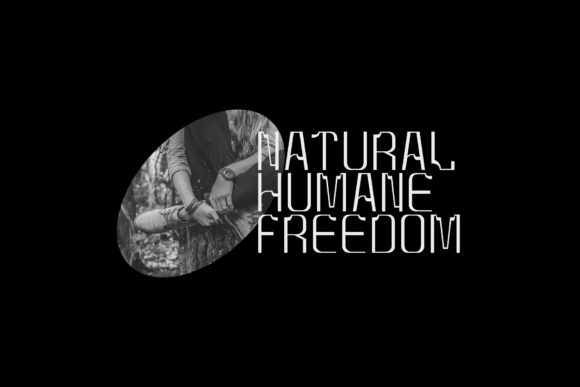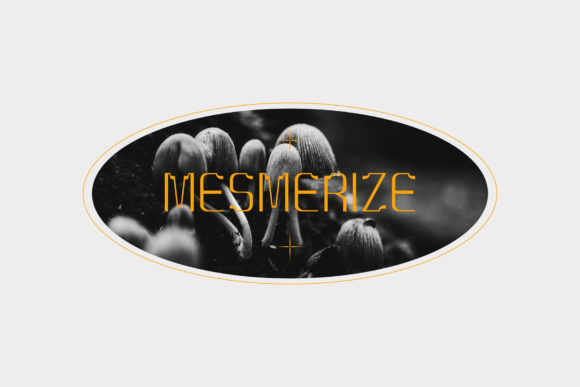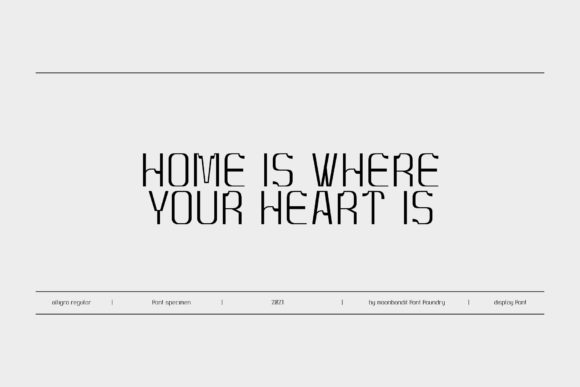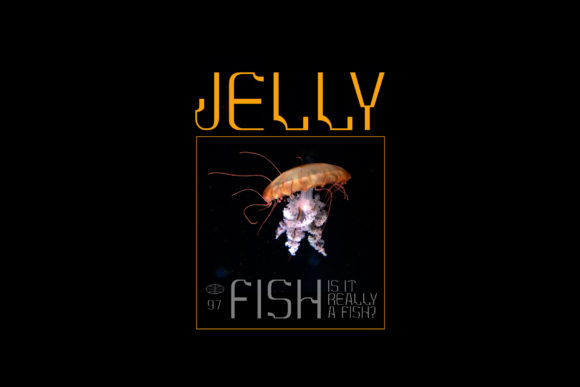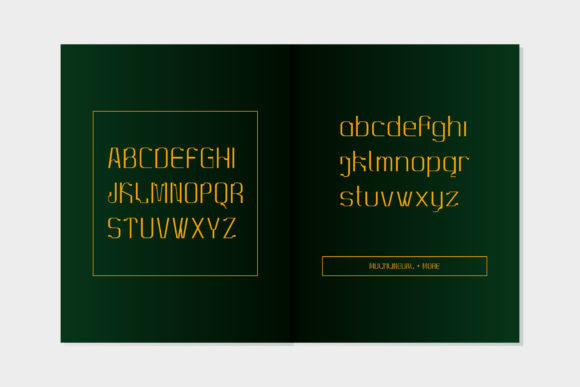
Introducing Alligra Font: Elevate Your Designs with a Modern Geometric Twist
In the world of typography, fonts play a crucial role in conveying messages, evoking emotions, and setting the tone for a brand or project. For designers and crafters looking to make a statement, Alligra Font is an exceptional choice. This modern geometric display font is expertly designed to make your creations look out of this world, offering a versatile and visually stunning solution for a variety of projects.
What is Alligra Font?
Alligra Font is a contemporary geometric display font that boasts clean lines, precise shapes, and a futuristic aesthetic. Its modern design makes it perfect for projects that demand a sleek and sophisticated look. Whether you’re working on a branding campaign, a website, a poster, or any other visual material, Alligra Font is sure to impress.
Key Features of Alligra Font
- Geometric Design: Alligra Font features a geometric design with sharp lines and precise curves, giving it a modern and edgy look.
- Versatility: This font is highly versatile and can be used for a wide range of projects, from digital designs to print materials.
- Legibility: Despite its geometric design, Alligra Font maintains excellent legibility, making it suitable for both headlines and body text.
- Customization: With Alligra Font, you have the flexibility to experiment with different sizes, colors, and styles to match your project’s unique needs.
Why Choose Alligra Font?
With so many fonts available, why should you choose Alligra Font for your next project? Here are a few compelling reasons:
- Uniqueness: Alligra Font offers a distinctive look that sets it apart from more traditional fonts. Its geometric design ensures your project will stand out.
- Professionalism: The modern and sleek design of Alligra Font conveys professionalism and sophistication, making it ideal for branding and marketing materials.
- Easy to Pair: Alligra Font pairs well with a variety of other fonts, allowing you to create stunning contrast and visual hierarchy in your designs.
Using Alligra Font in Your Designs
Tips for Maximizing Alligra Font’s Impact
To get the most out of Alligra Font, consider the following tips:
- Use for Headlines: Alligra Font is perfect for headlines and titles where you want to grab attention.
- Contrast with Other Fonts: Pair Alligra Font with simpler fonts for body text to create visual contrast.
- Experiment with Colors: Don’t be afraid to try out different colors and gradients to make your text pop.
Alligra Font is a powerful tool for designers and crafters looking to elevate their projects with a modern geometric display font. Its unique design, versatility, and ease of use make it an excellent choice for a wide range of applications. By incorporating Alligra Font into your designs, you can ensure your work stands out and leaves a lasting impression.